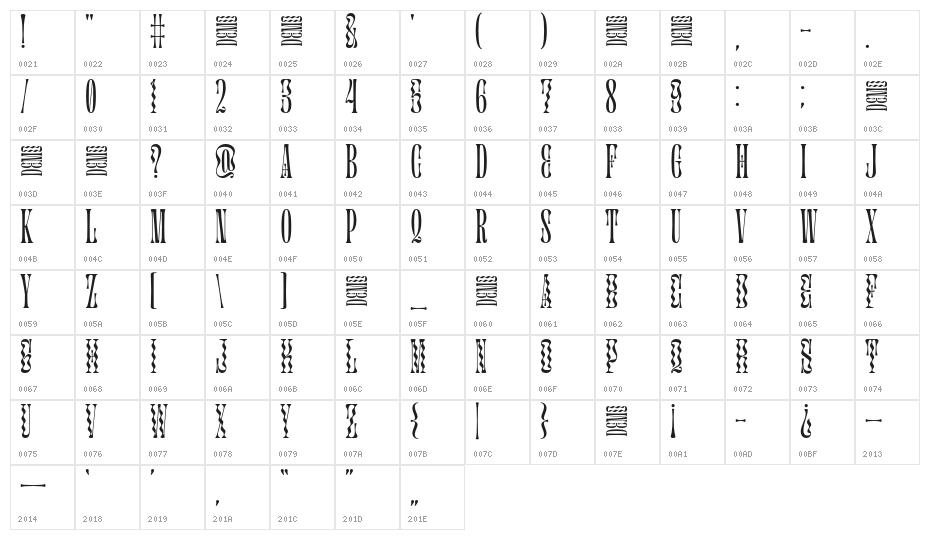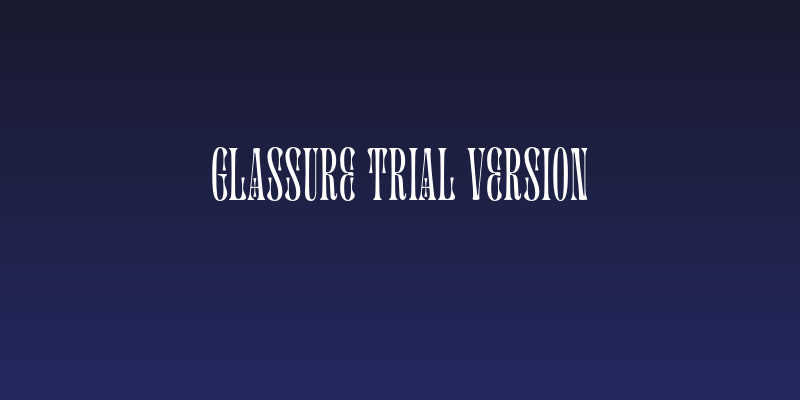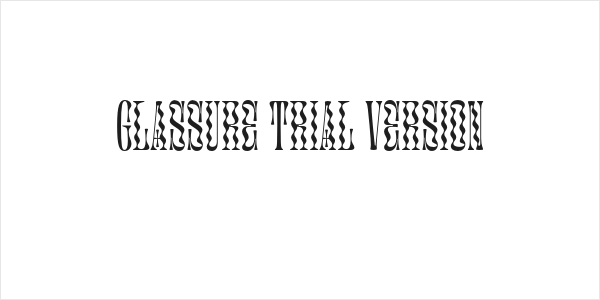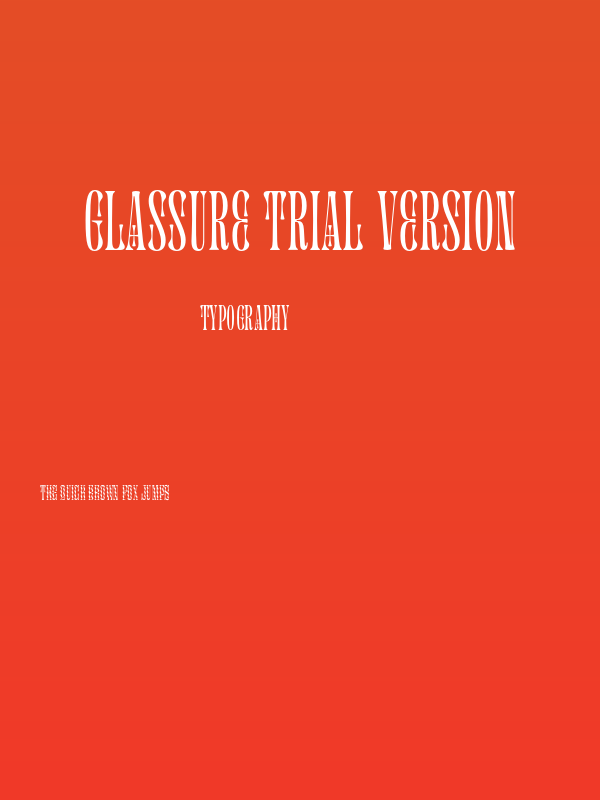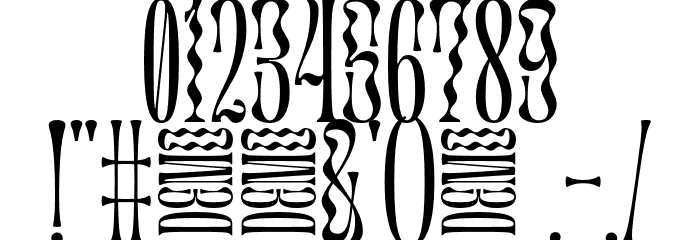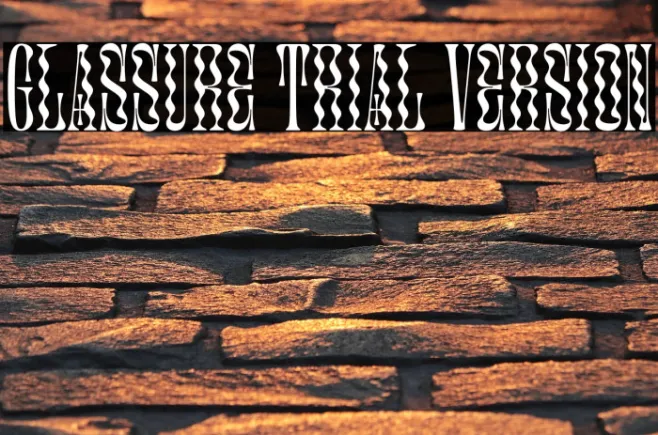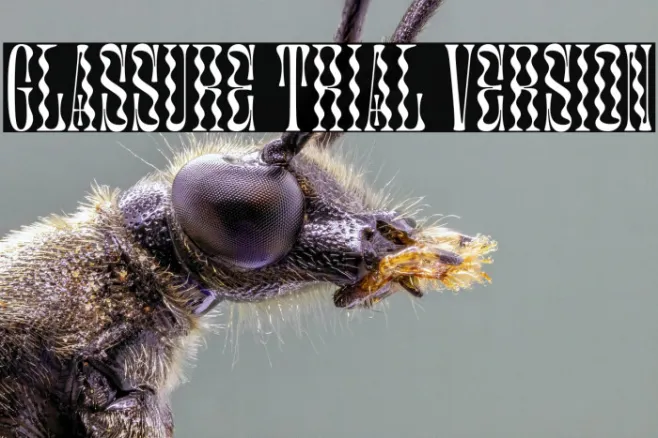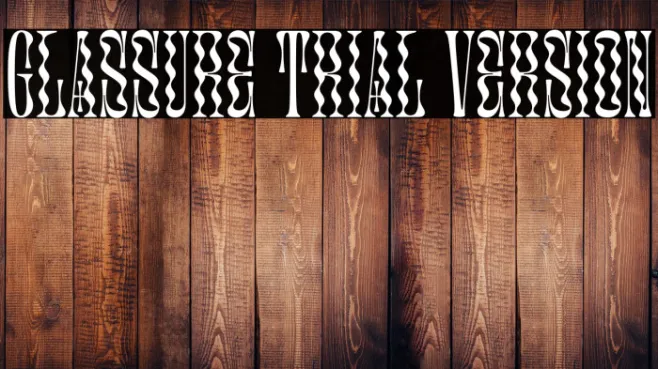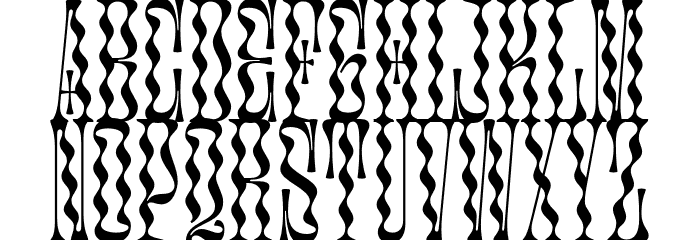
Glassure Trial Version Font
Glassure Trial Version Description
This font features a highly decorative and artistic style, characterized by its elongated and narrow letterforms with intricate detailing. The uppercase letters are particularly striking, with vertical extensions and unique embellishments that give each character a distinct personality. The lowercase letters maintain the same decorative flair, with swirling patterns and curves that add to the overall aesthetic. Numbers and special characters are equally ornate, making this font ideal for creative and eye-catching designs. Its unique style is reminiscent of vintage and art nouveau influences, making it suitable for projects that require a touch of elegance and sophistication.
| Proposed Projects | Ideal for posters, invitations, branding, and any design needing a vintage or artistic touch. |